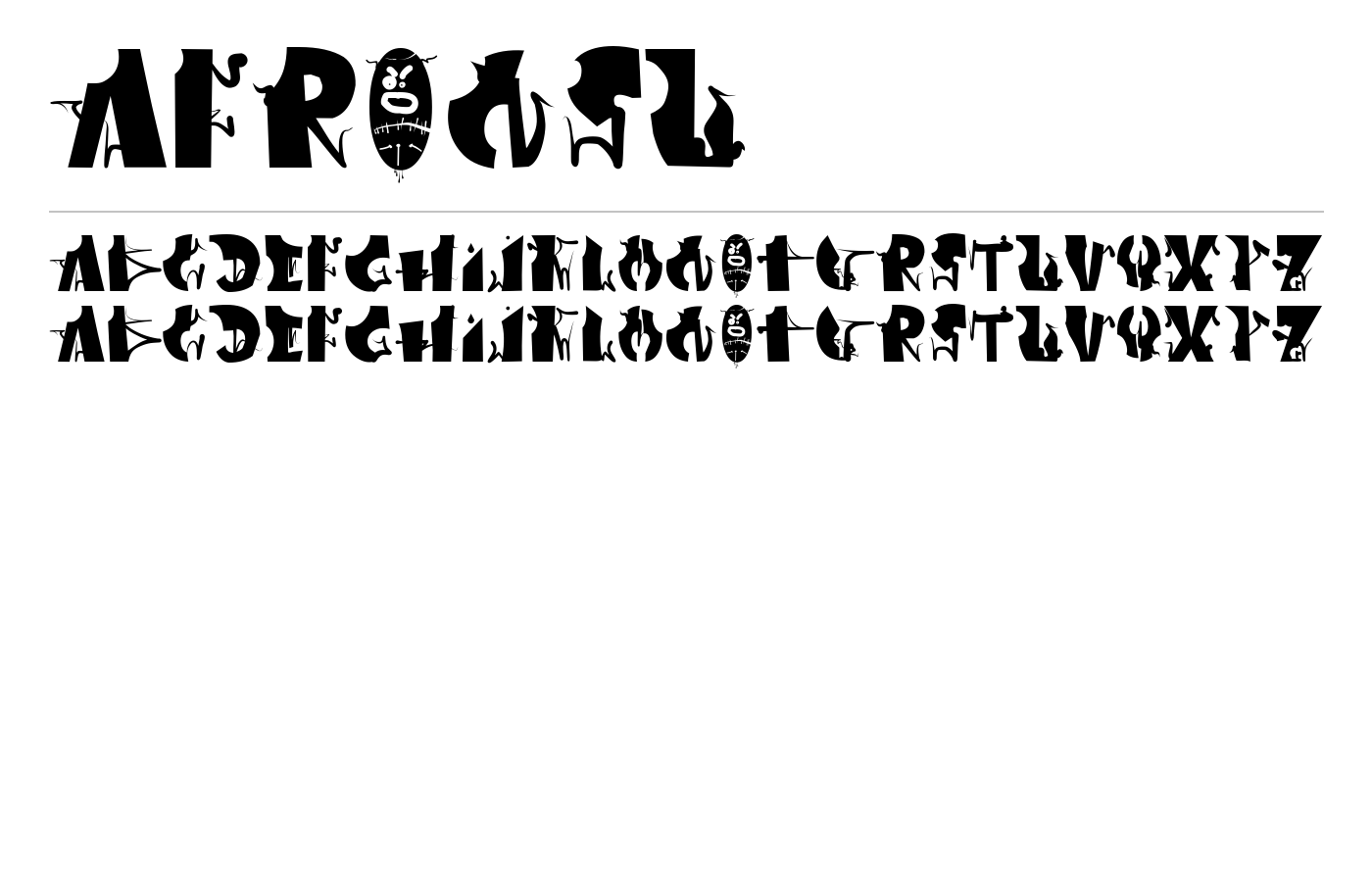
Afronsu is a bold, decorative display font with a highly stylized, tribal-inspired design that features intricate, organic shapes and unusual detailing within each letter. Its strong, condensed forms and striking contrast between solid black areas and delicate cutouts create a dramatic, artistic effect, making it perfect for eye-catching headlines, posters, and branding that seeks to convey a unique, cultural, and edgy vibe. This font works best in creative contexts where readability takes a backseat to visual impact and stylistic expression.
Afronsu Font